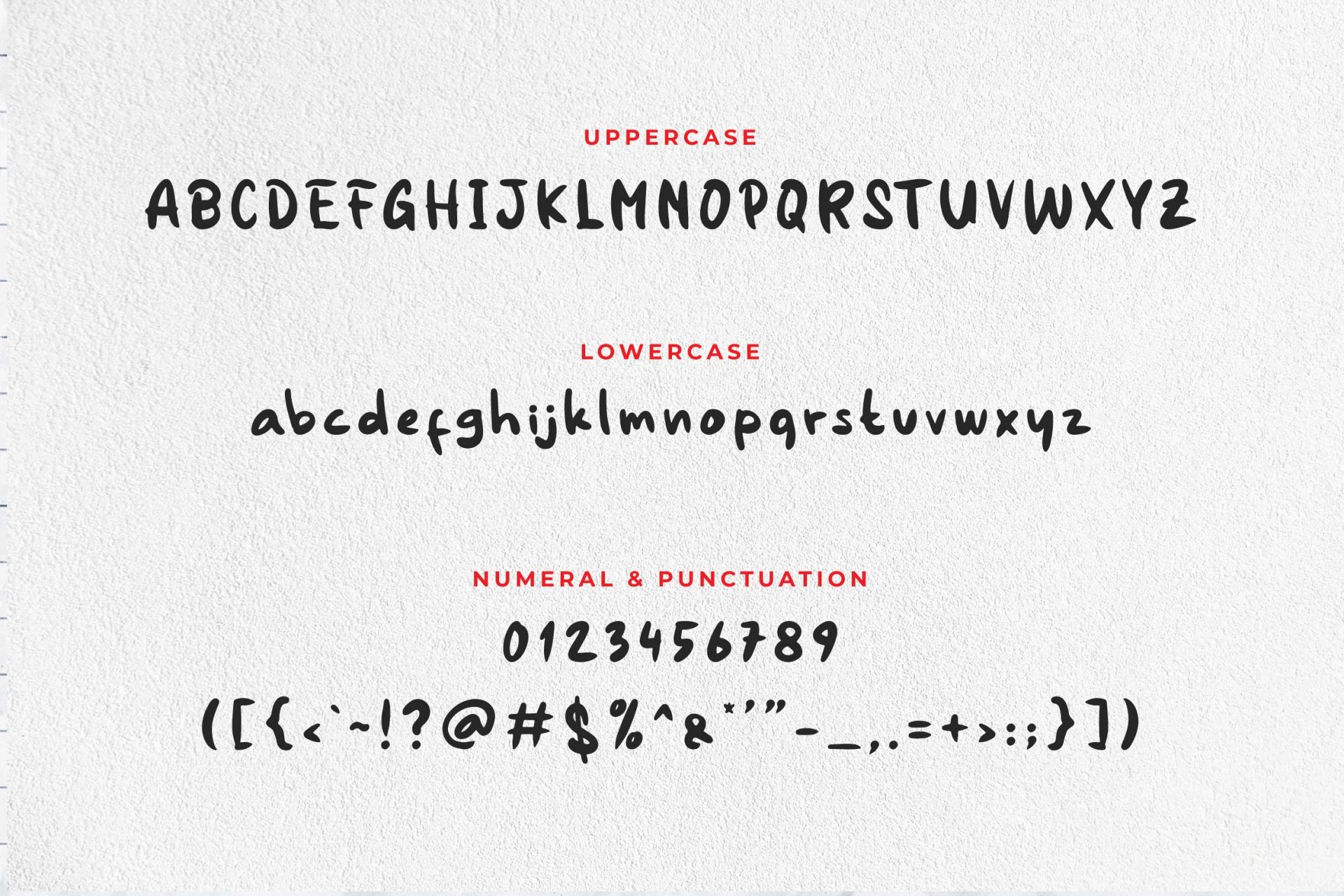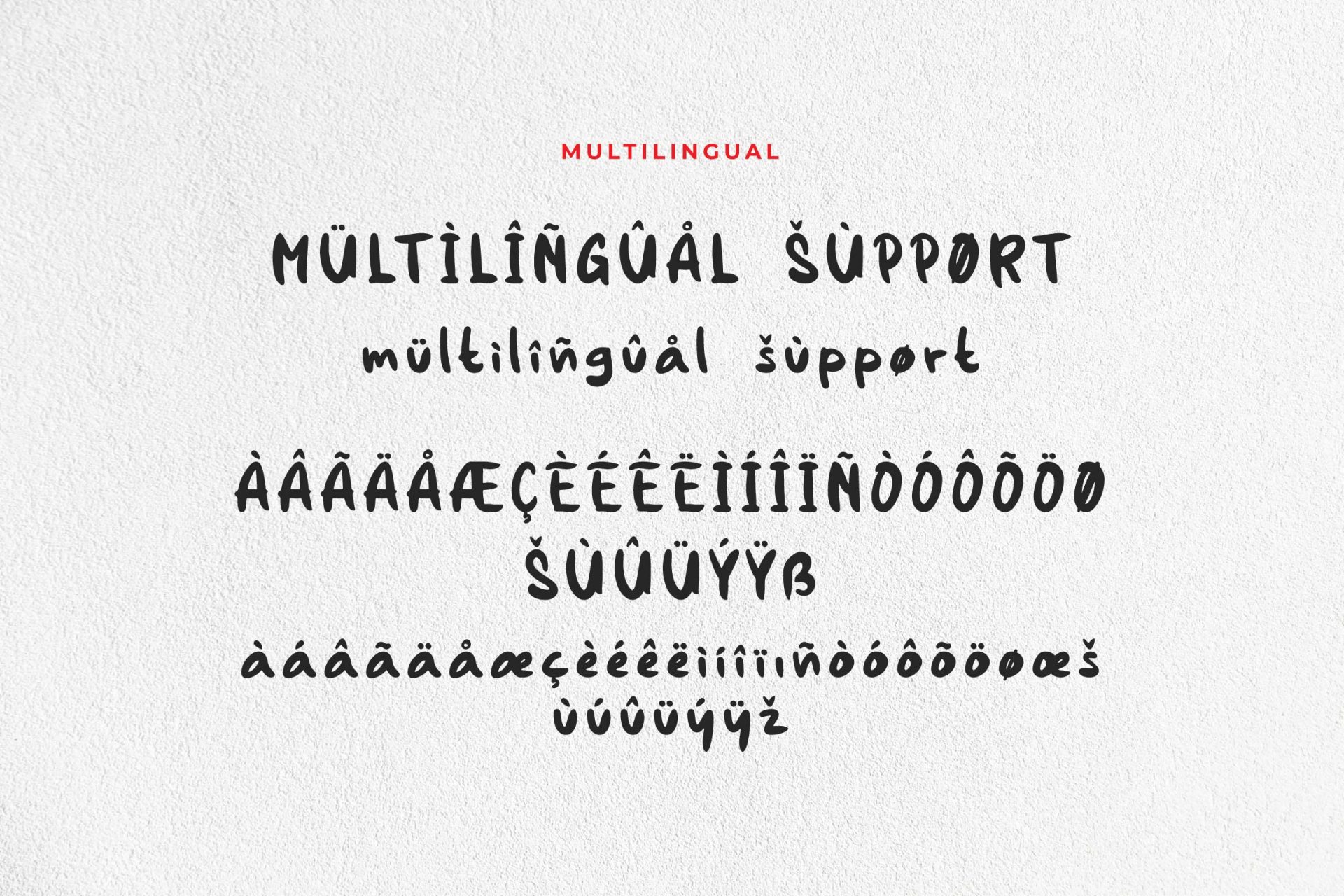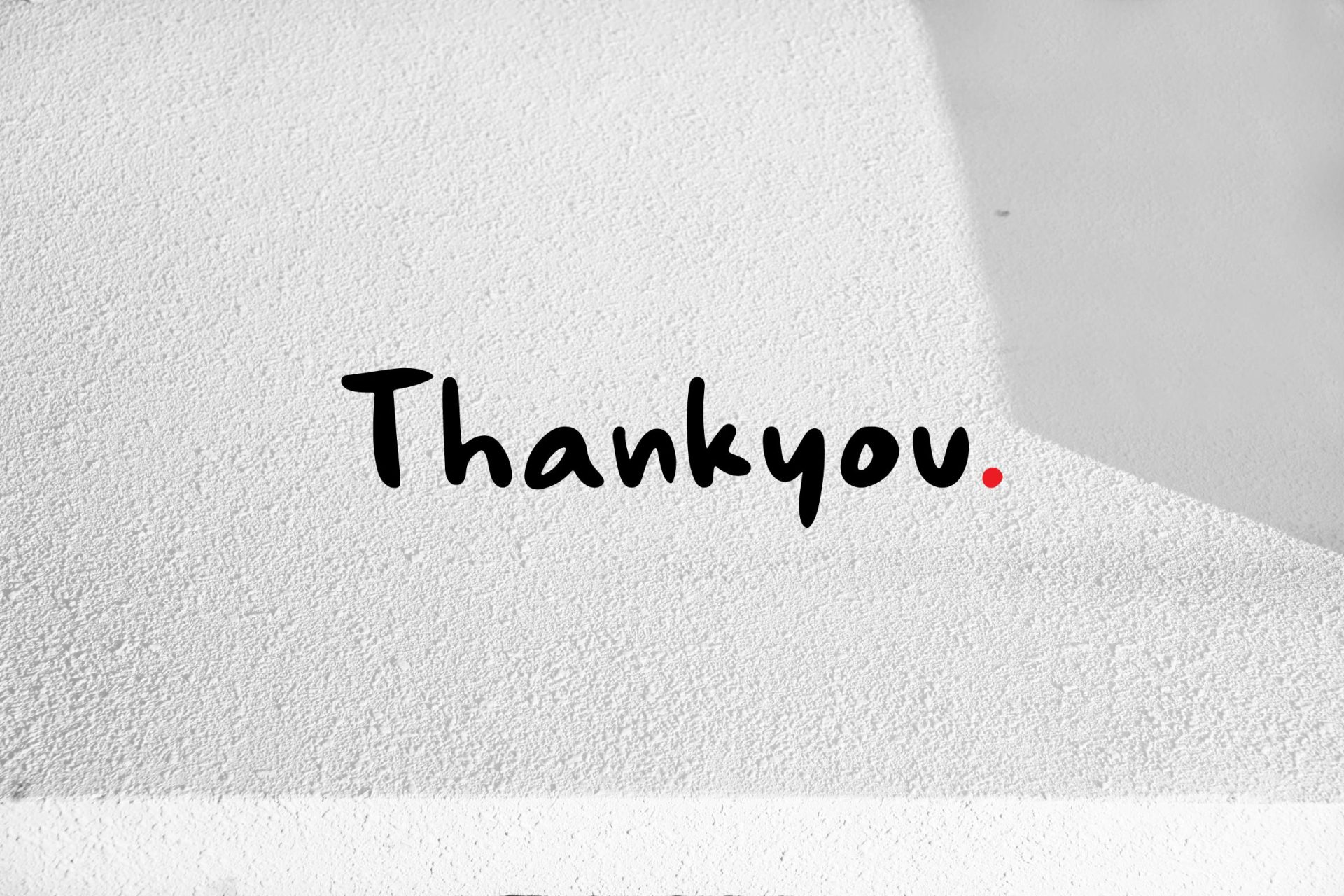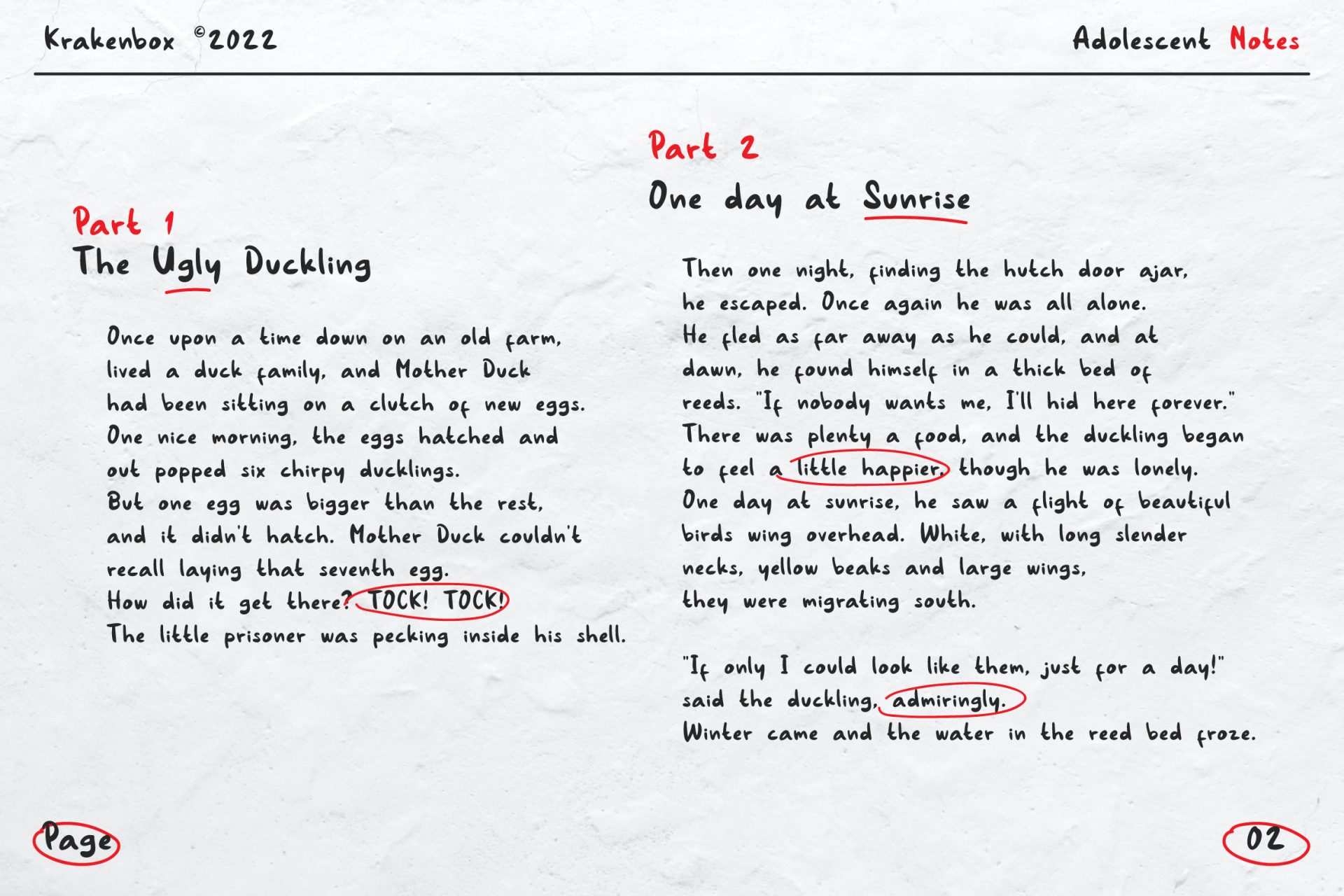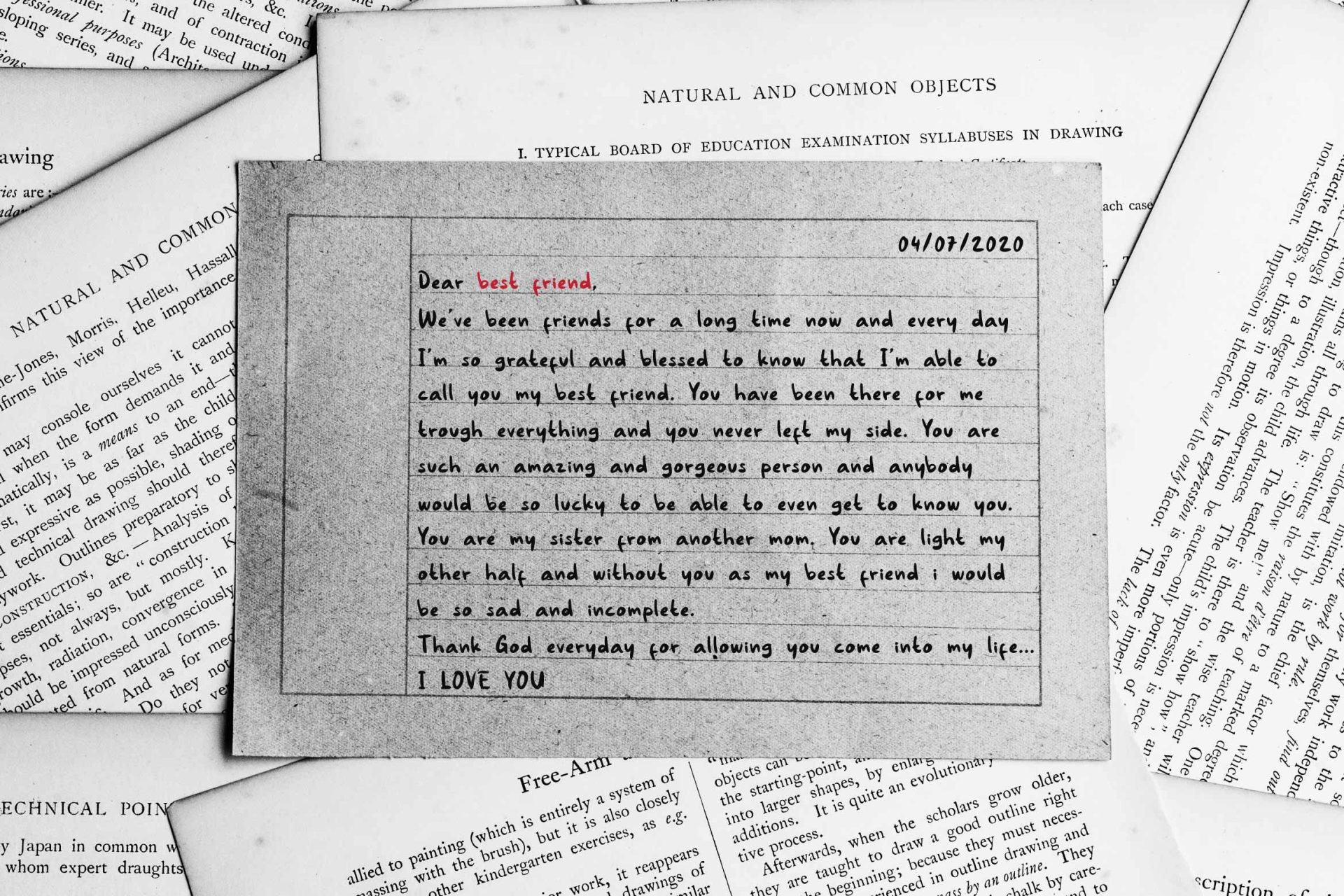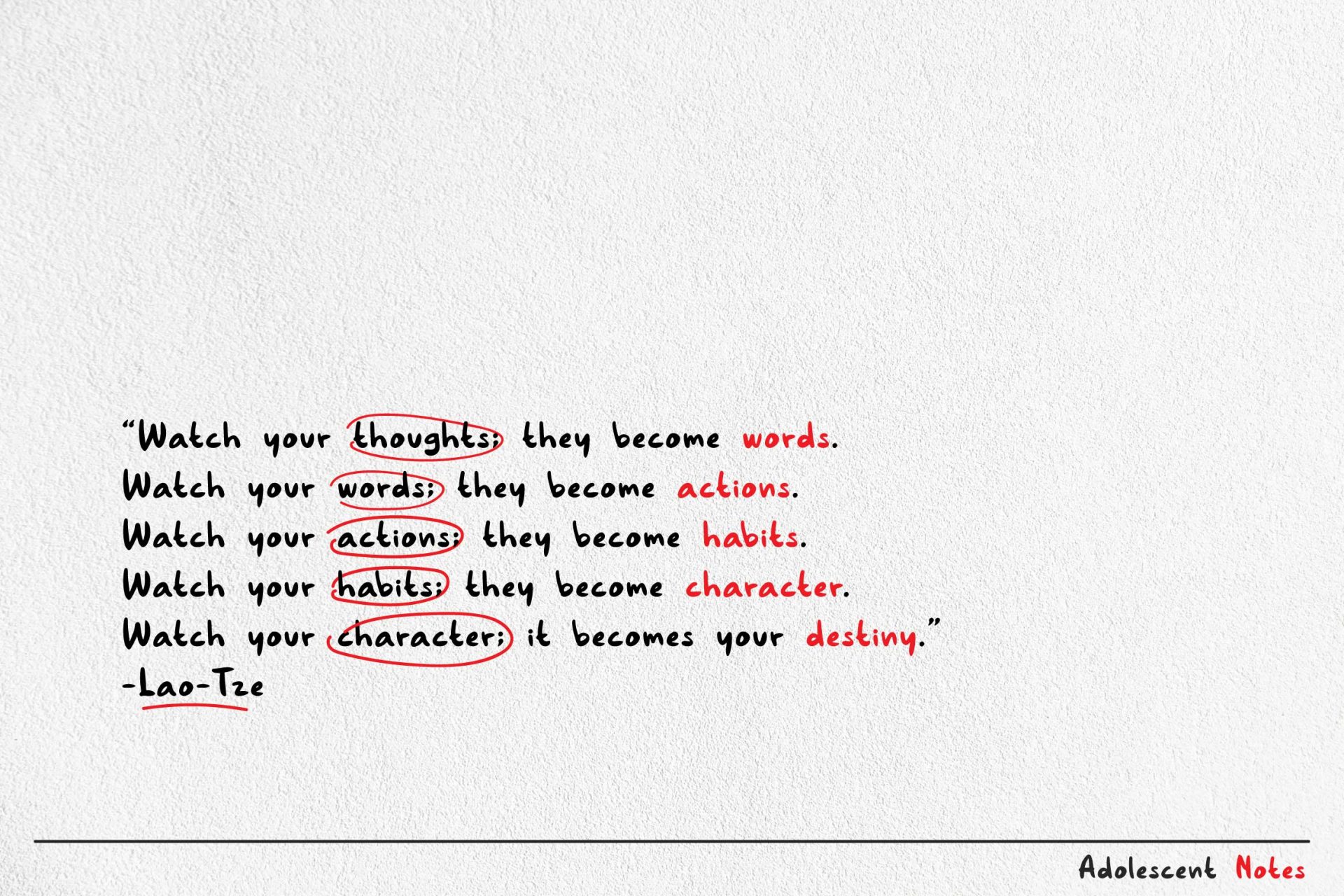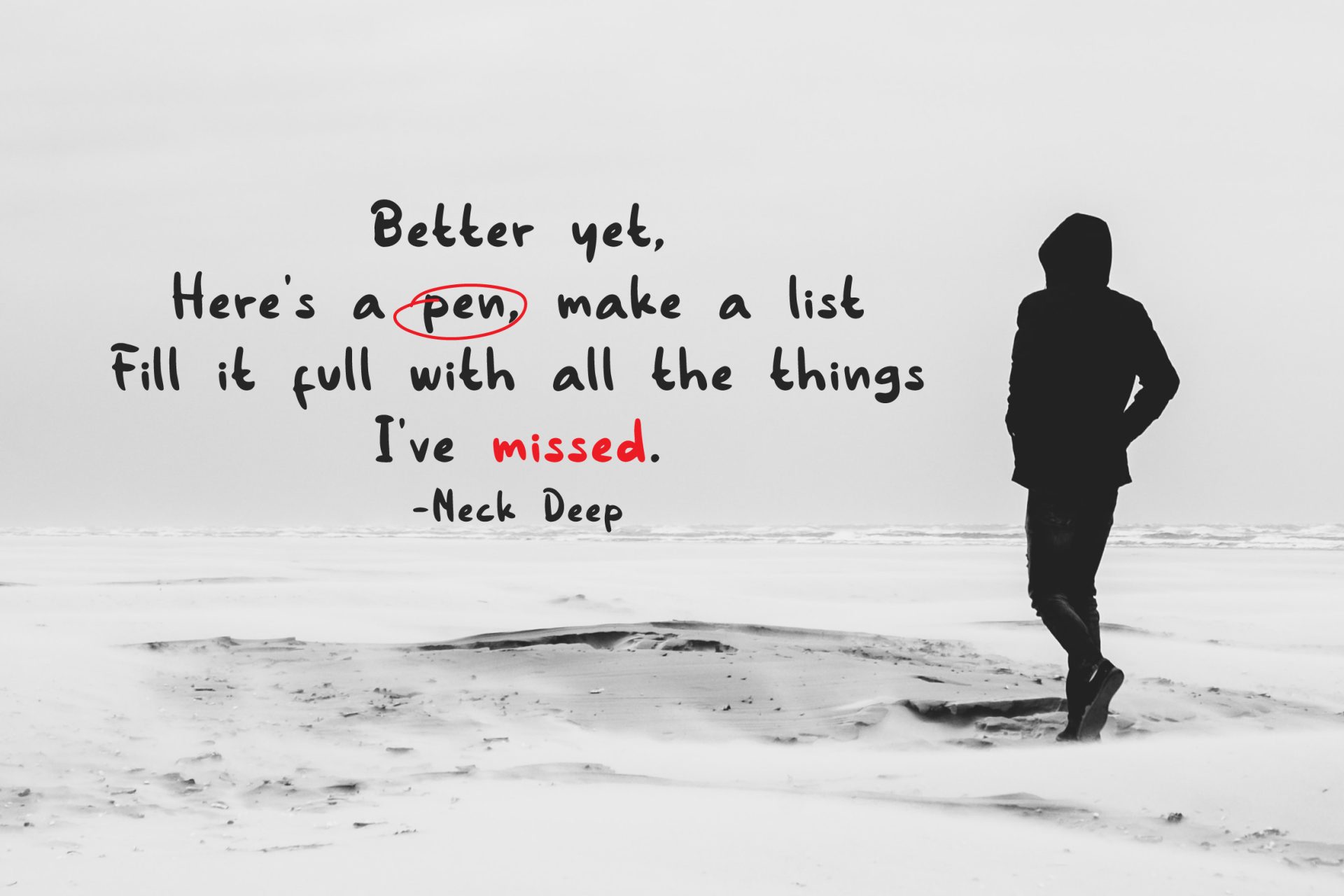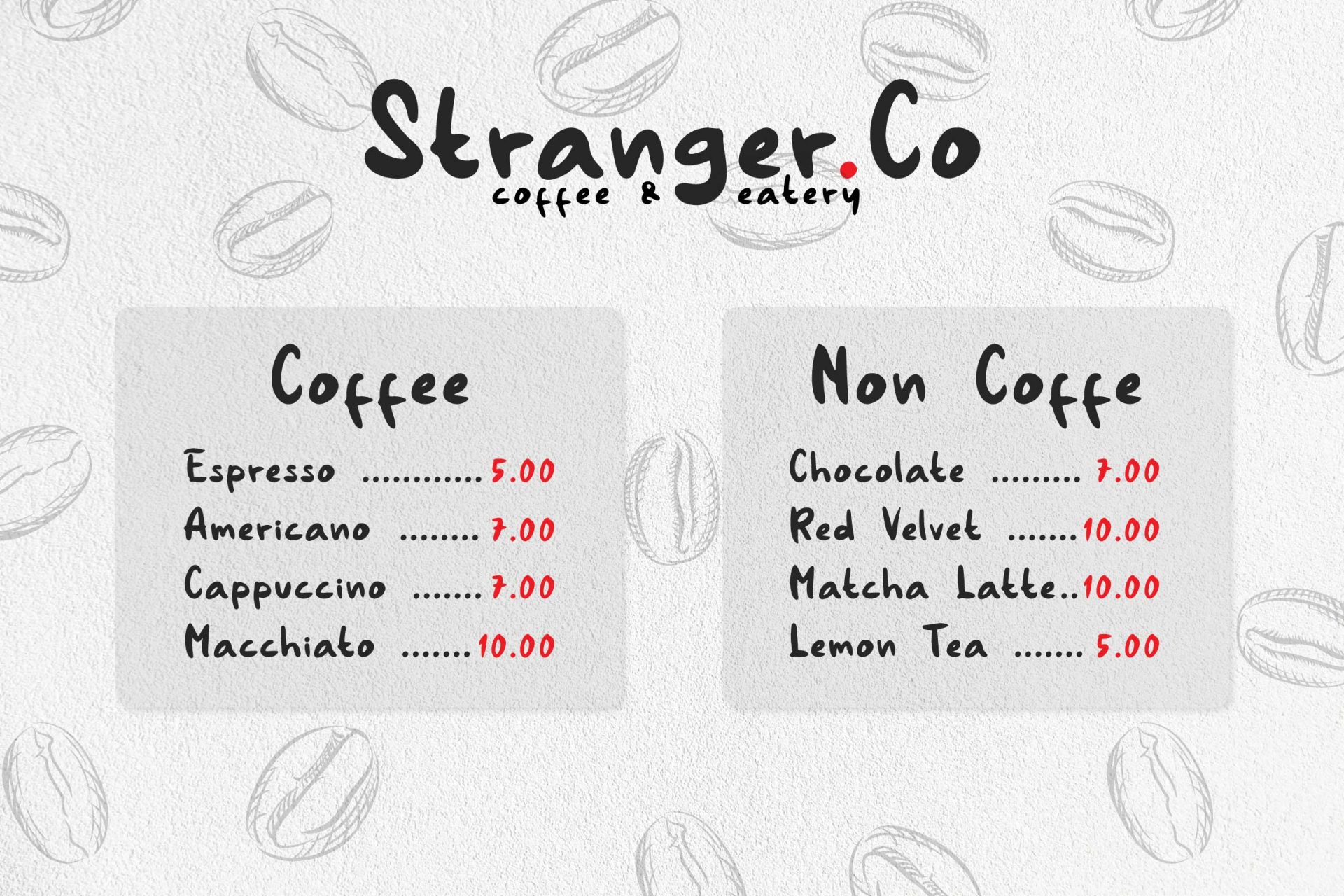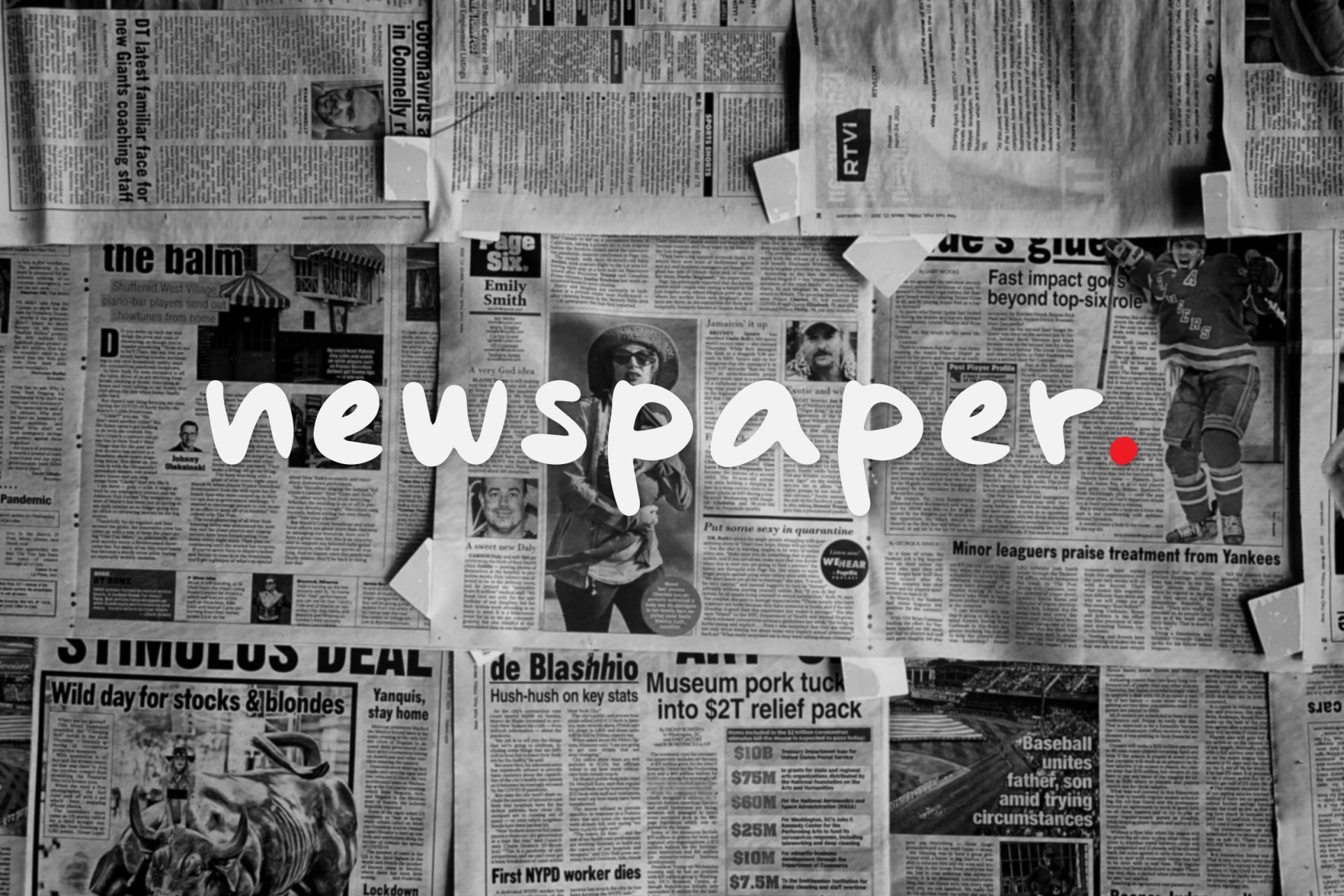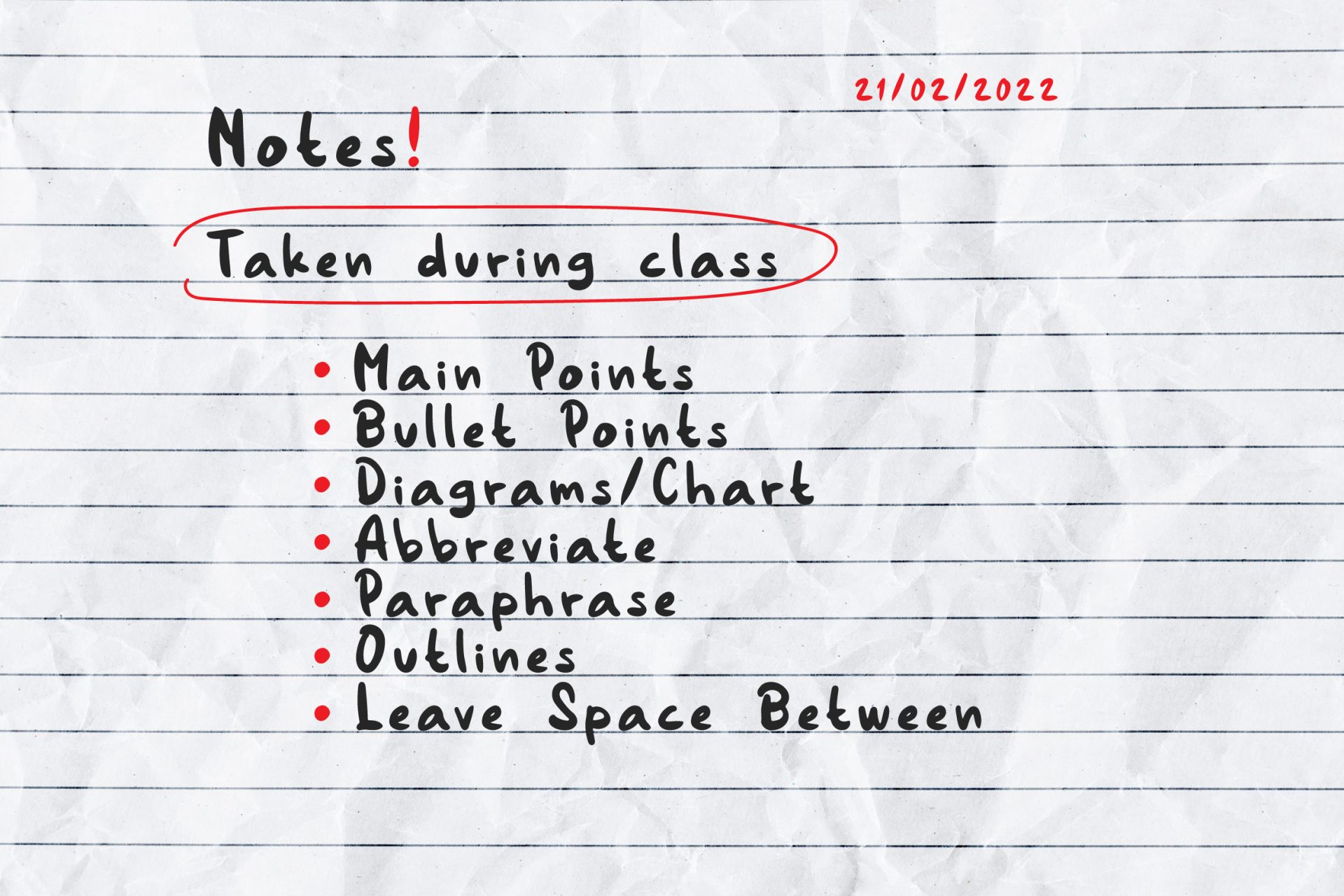
Introducing Adolescent – Handwritten Note Font by KrakenBox
Adolescent is a cute and playful handwritten font. Use this font to add that special cool touch to any design idea you can think of!
Adolescent is best for:
– logos, branding, & Signatures.
– Flyers, Album cover, Magazine, & Advertisements.
– Website design , design blogs, & fashion.
– Quote graphics for social media.
– and also it works great for other projects.